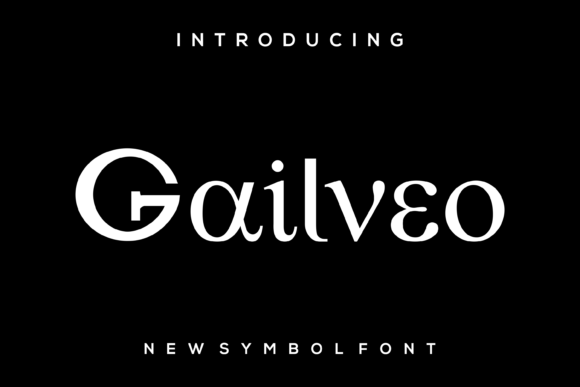
Introducing Gailveo, a dynamic display font that will ignite your creativity and elevate your designs. Its alluring curves and captivating presence make it the perfect choice for grabbing attention and leaving a lasting impression. Imagine the impact of your posters, billboards, and social media graphics adorned with the exquisite Gailveo.
Created by the talented lelevien, Gailveo is an exquisite blend of style and functionality. Its distinct character makes it a standout in the realm of display fonts. Whether you're a seasoned designer or just starting your artistic journey, Gailveo empowers you to express your vision with unparalleled impact.
Its versatility knows no bounds, making it suitable for a wide range of creative projects. From captivating logos to eye-catching headlines, Gailveo will transform your ideas into unforgettable masterpieces. Its captivating curves evoke a sense of elegance and intrigue, drawing the eyes of your audience and leaving them captivated.